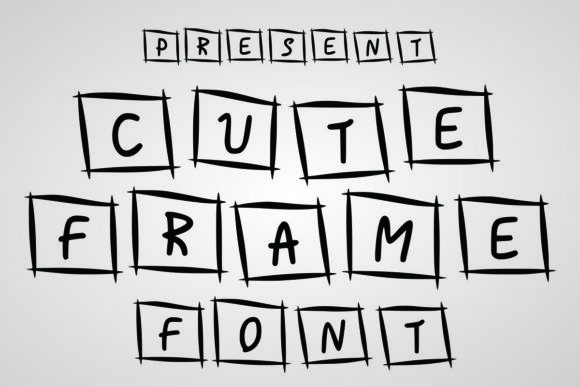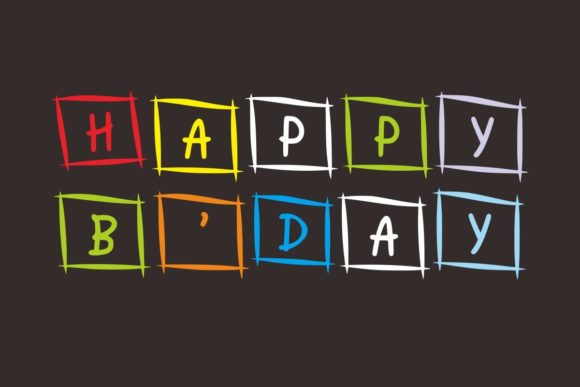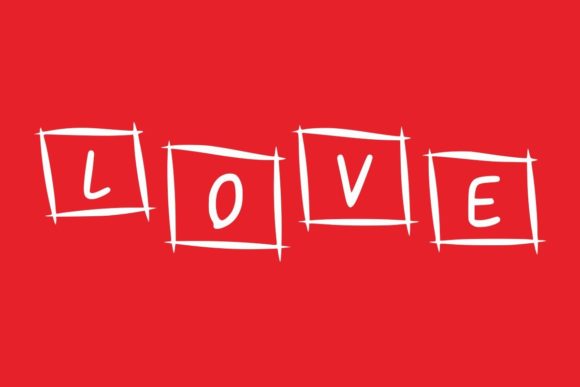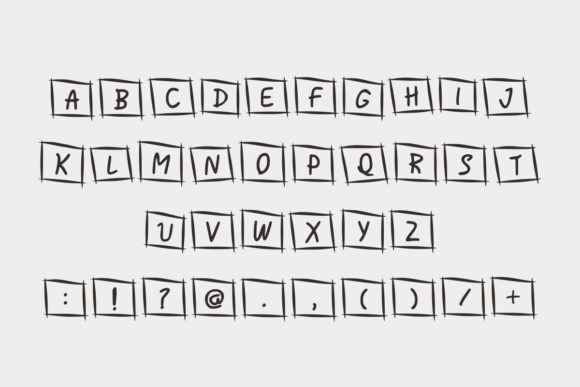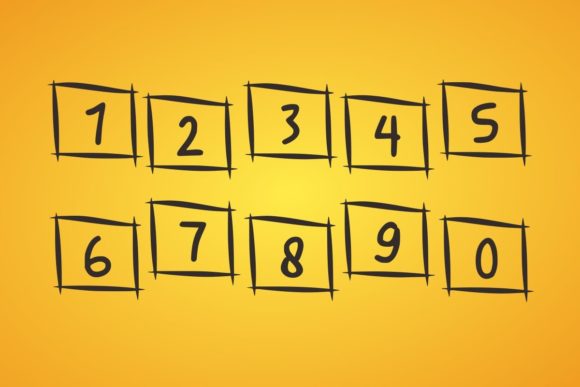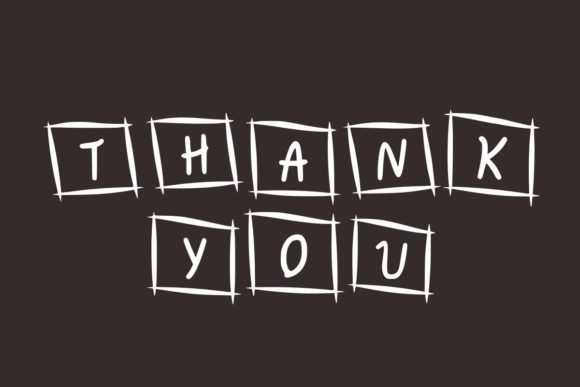
Cute Frame Font: Add a Touch of Youth and Joy to Your Designs
Are you looking for a font that can add a playful and fun touch to your designs? Look no further than the Cute Frame Font! This cool and fun decorative font features frames around each letter, making it perfect for adding a touch of youth and joy to any design.
What is Cute Frame Font?
Cute Frame Font is a unique and creative font that features frames around each letter. It’s a decorative font that’s perfect for designers and crafters who want to add a playful touch to their designs. The font is versatile and can be used for a variety of projects, from promotions and price tags to party invitations and banners.
Features of Cute Frame Font
- Unique and Creative Design: The Cute Frame Font features a unique and creative design with frames around each letter, making it stand out from other fonts.
- Playful and Fun: The font has a playful and fun vibe, making it perfect for designs that require a touch of youth and joy.
- Versatile: The font is versatile and can be used for a variety of projects, from promotions and price tags to party invitations and banners.
Uses of Cute Frame Font
Cute Frame Font can be used for a variety of projects, including:
- Promotions: Add a touch of fun and playfulness to your promotions with the Cute Frame Font.
- Price Tags: Use the font to create cute and playful price tags that will grab the attention of your customers.
- Party Invitations: Create fun and playful party invitations with the Cute Frame Font.
- Banners: Use the font to create eye-catching banners that will grab the attention of your audience.
- Gatherings: Add a touch of fun and playfulness to your gathering invitations with the Cute Frame Font.
Benefits of Using Cute Frame Font
Using the Cute Frame Font can have several benefits, including:
- Increased Engagement: The font’s playful and fun design can help increase engagement with your audience.
- Unique and Creative Designs: The font’s unique design can help you create unique and creative designs that stand out from the crowd.
- Time-Saving: The font is easy to use and can save you time when creating designs.
Tips for Using Cute Frame Font
Here are some tips for using the Cute Frame Font:
- Use it for Headings: Use the font for headings and titles to add a touch of fun and playfulness to your designs.
- Use it with Other Fonts: Use the Cute Frame Font with other fonts to create a unique and creative design.
In conclusion, the Cute Frame Font is a unique and creative font that can add a touch of youth and joy to any design. Its playful and fun design makes it perfect for designers and crafters who want to create unique and creative designs. With its versatility and ease of use, the Cute Frame Font is a must-have for any designer or crafter.